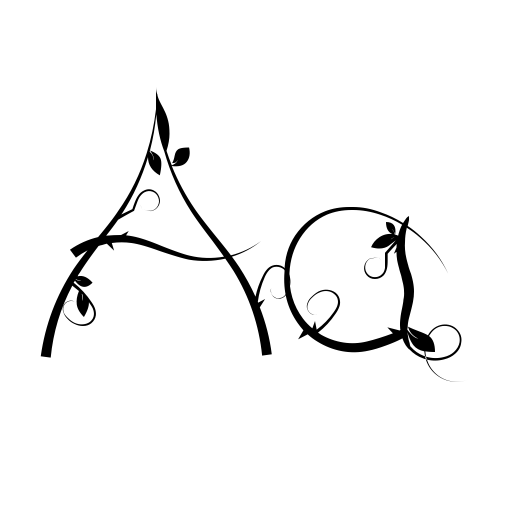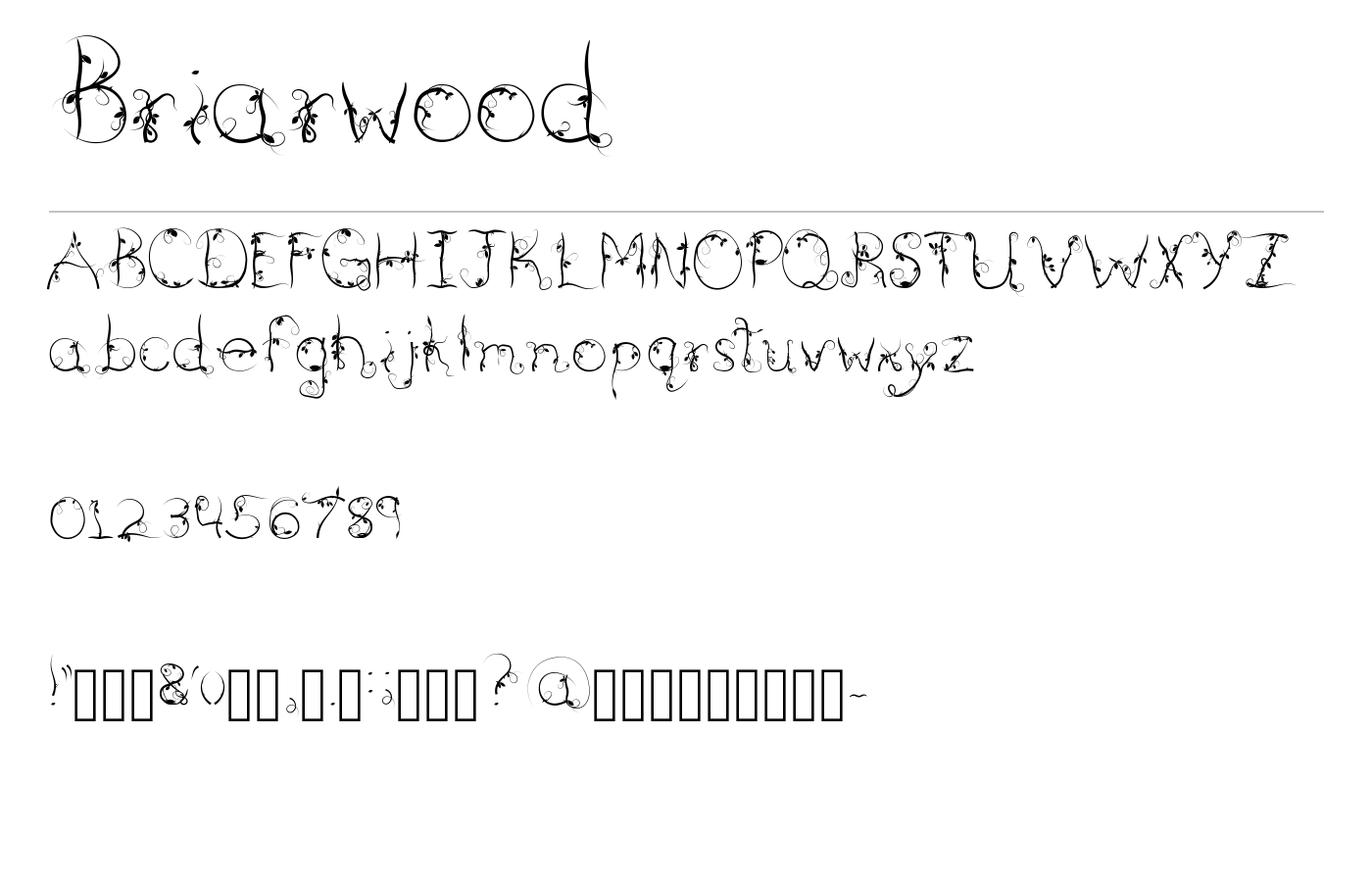
Briarwood is a decorative serif font featuring fine, delicate strokes intertwined with organic vine-like embellishments, giving it an elegant and whimsical feel. Its narrow, airy letterforms with high contrast and playful curls make it ideal for unique artistic projects, invitations, and branding that seek a touch of nature-inspired sophistication. This font works best in display settings where its intricate details can shine without sacrificing readability.
Briarwood Font
About Briarwood Font